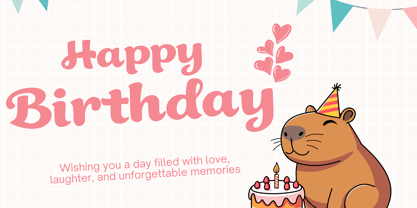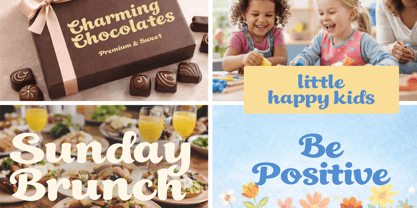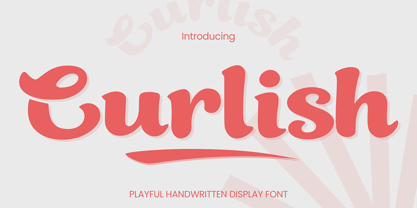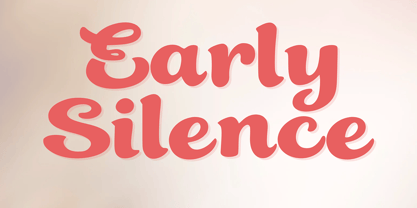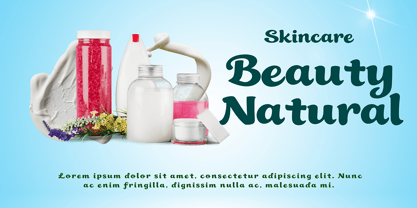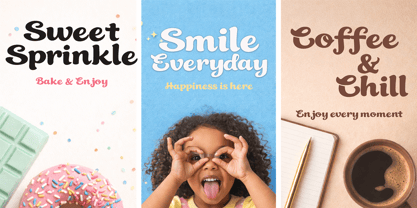
Curlish
by Cocodesign
The Curlish Font Family was designed by Muhammad Zaini and published by Cocodesign. Curlish contains 4 styles and family package options.
Curlish is a playful handwritten display font featuring bold, rounded, and smooth letterforms. Designed to deliver a friendly and cheerful look, this font combines a natural handwritten feel with clear readability. Curlish works perfectly for eye-catching designs and creative projects that need a fun, modern, and approachable appearance. Its balanced shapes make it suitable for both digital and print use.